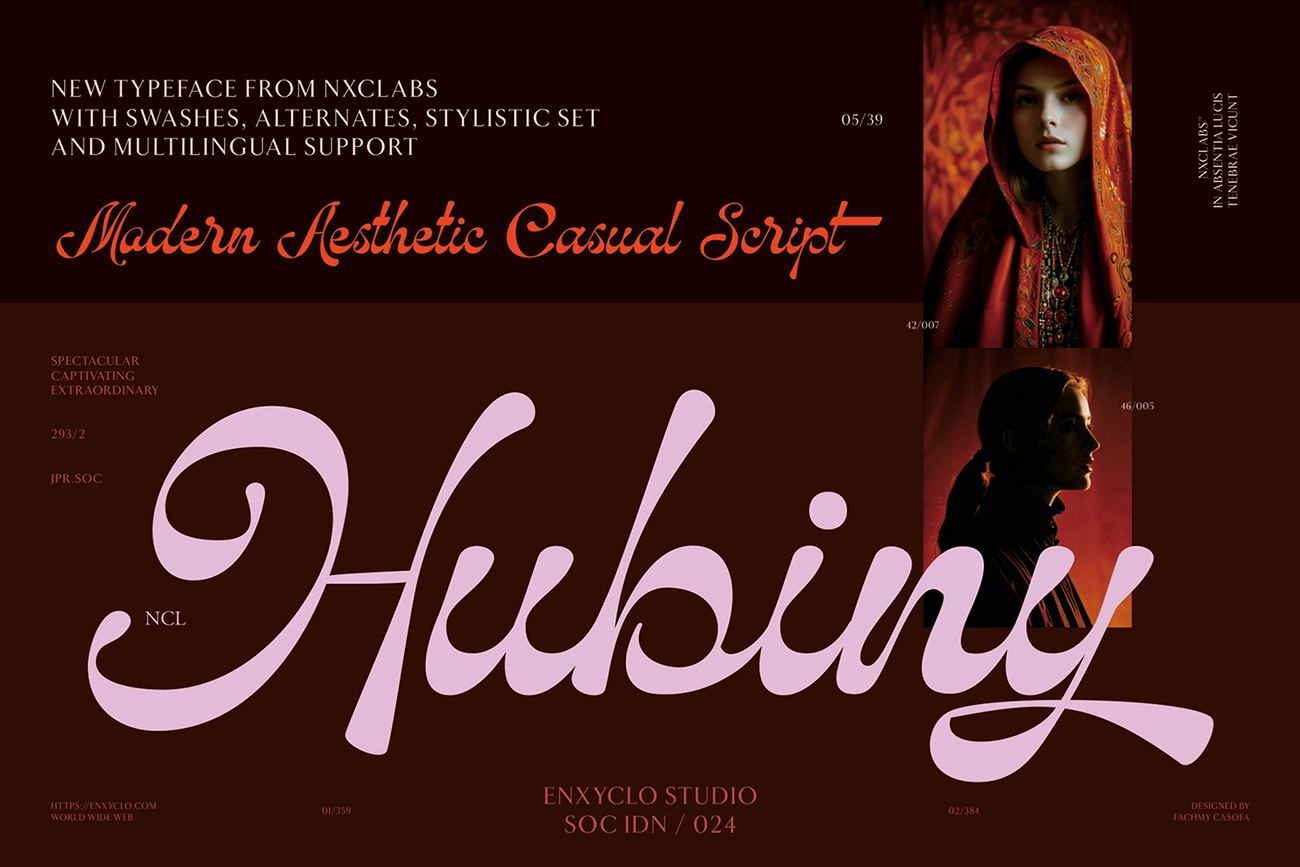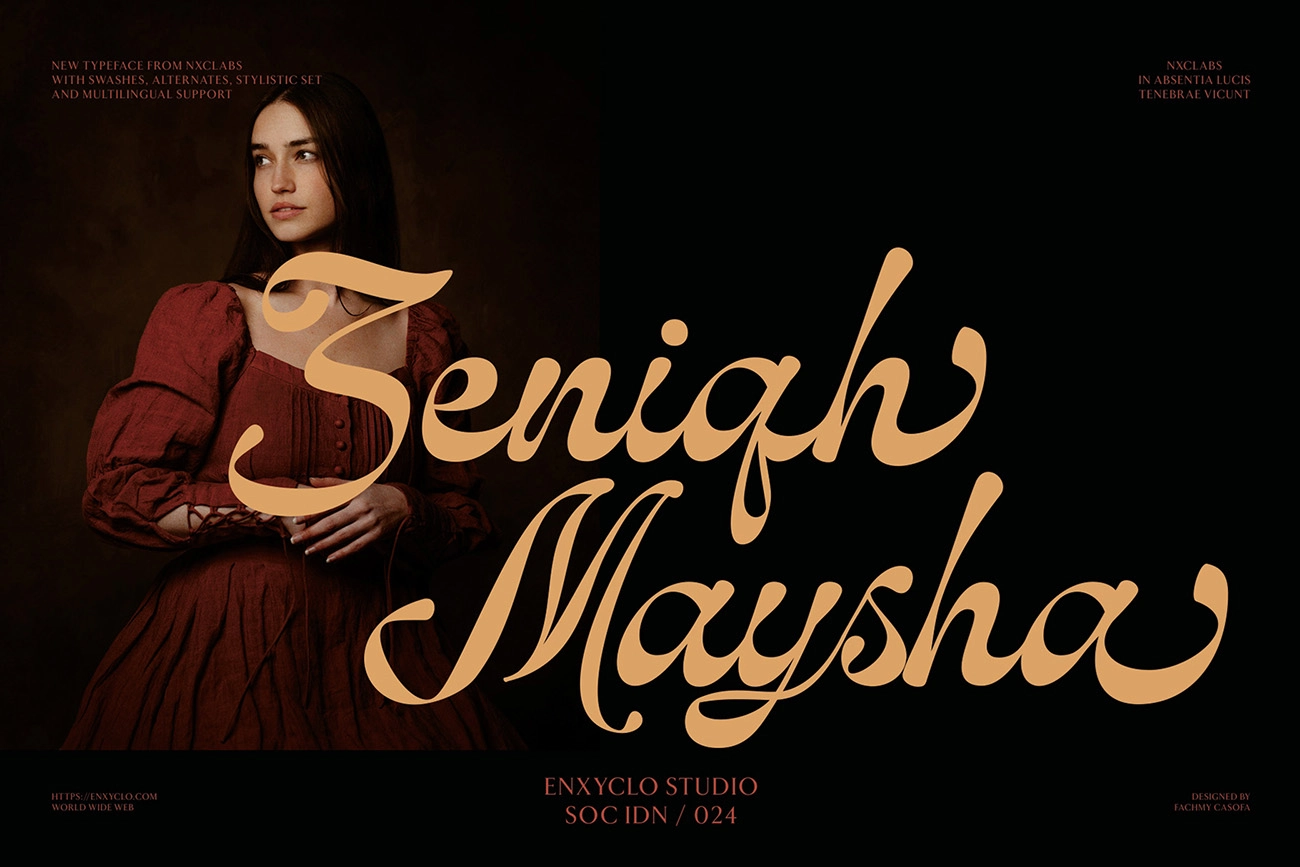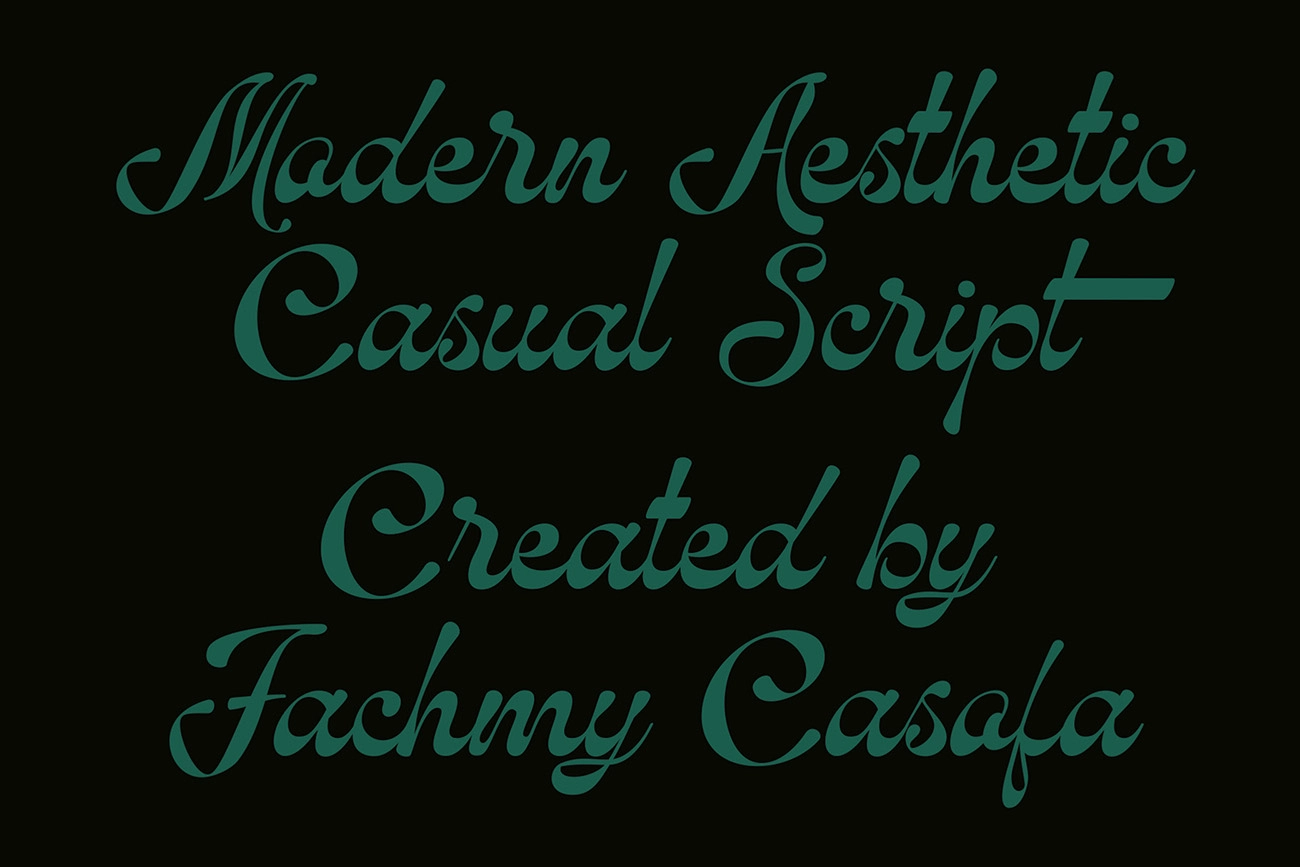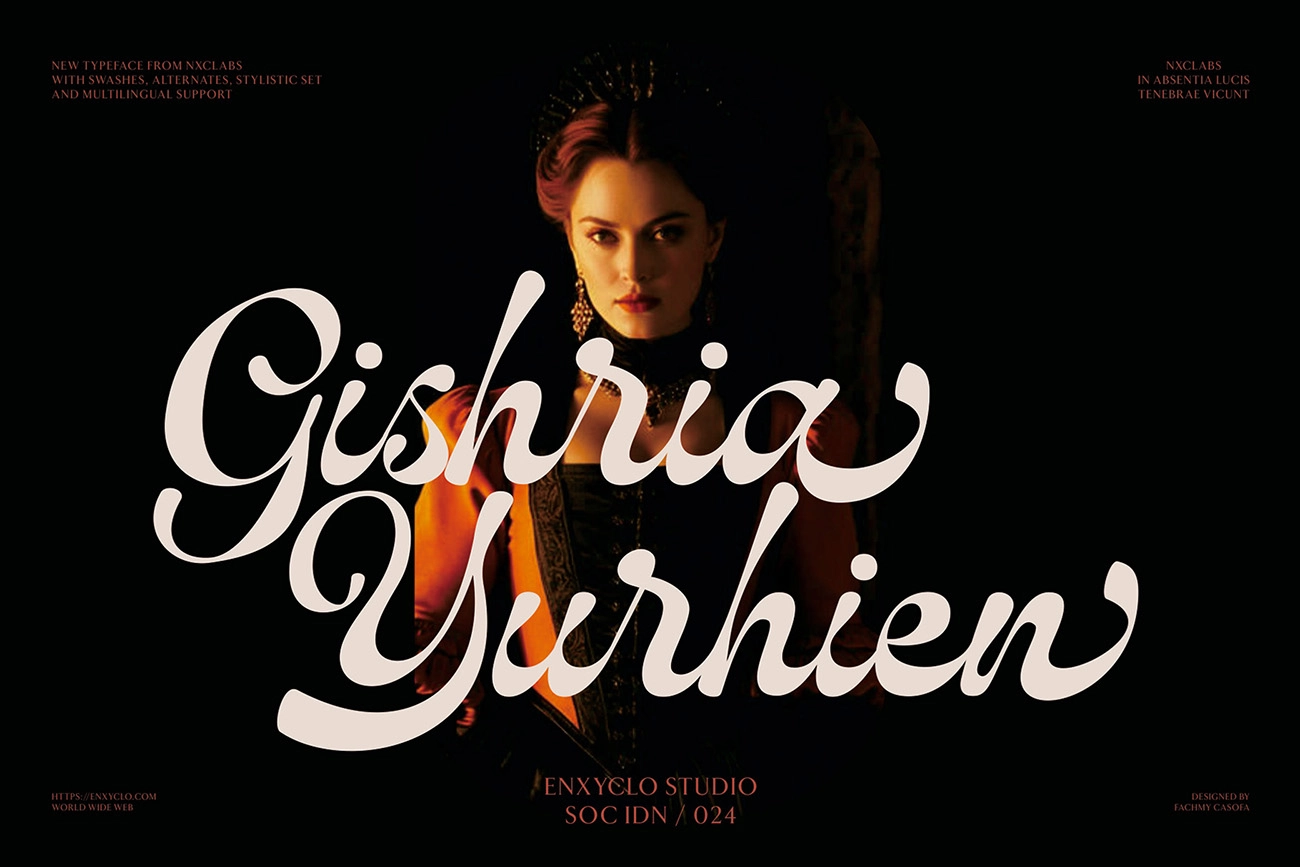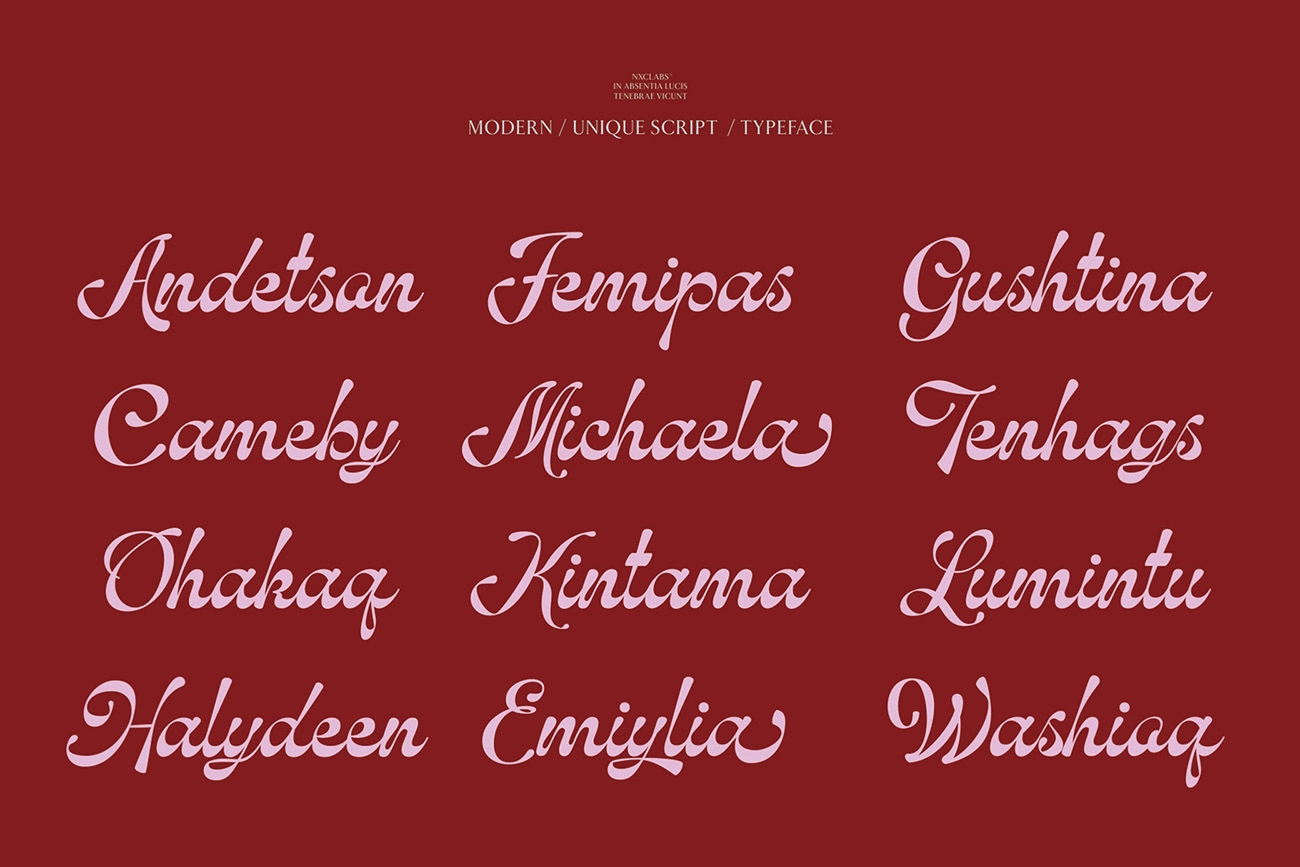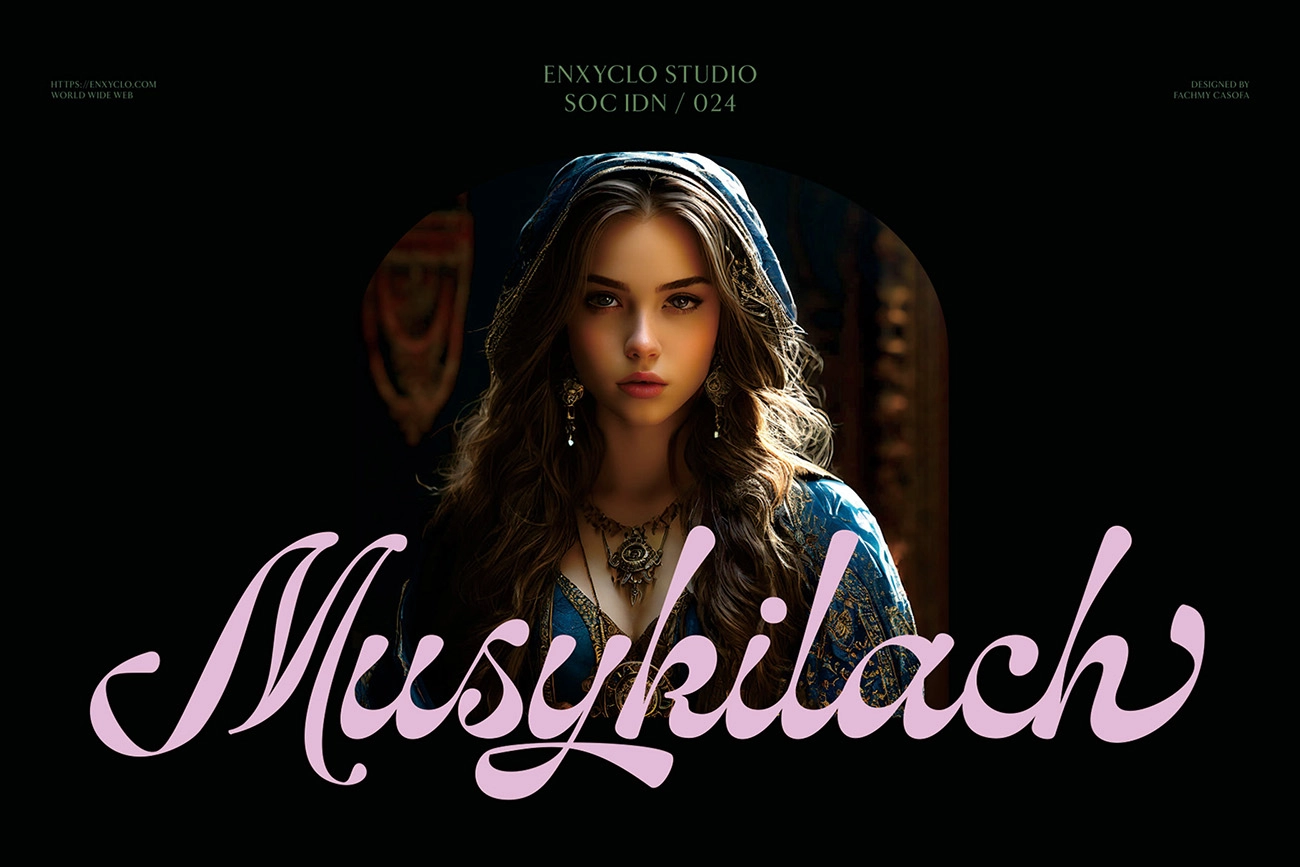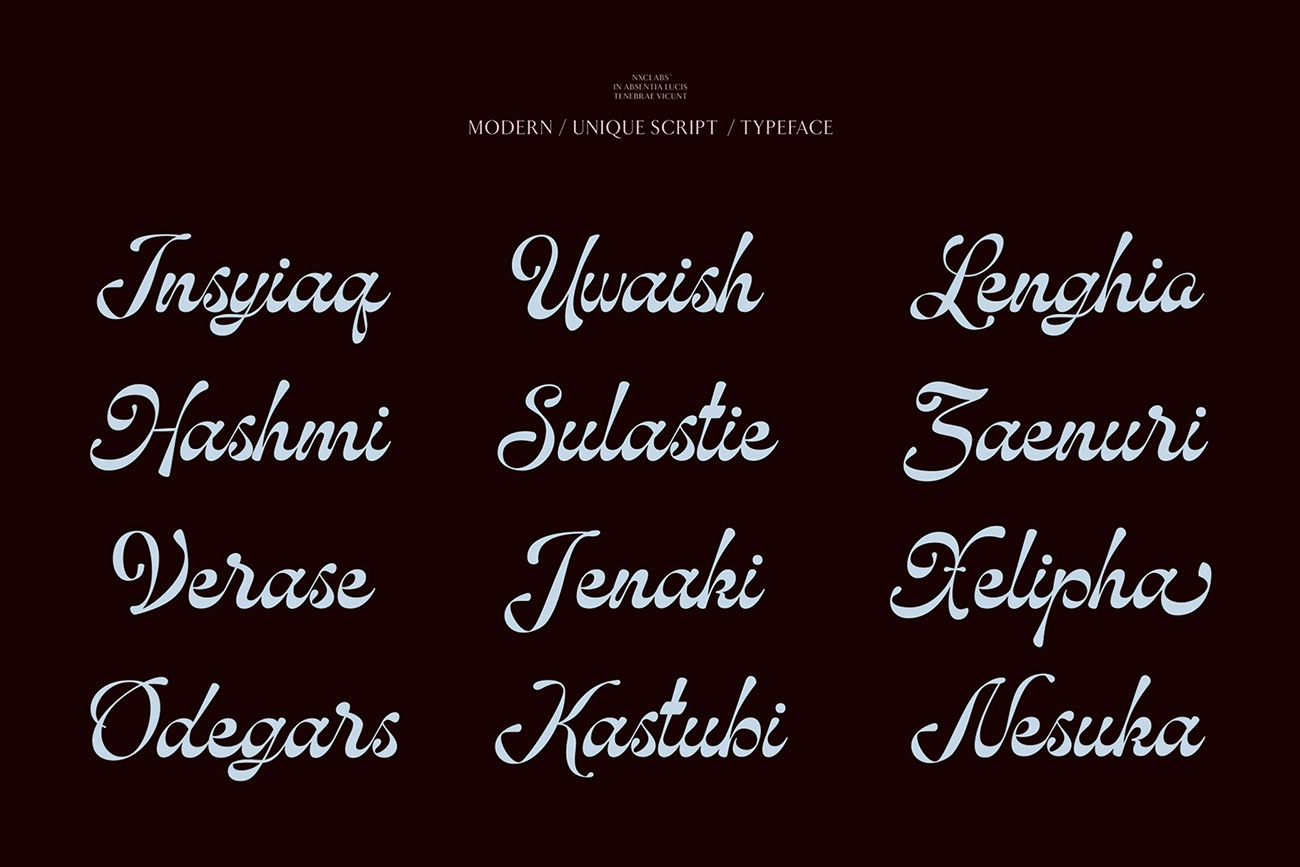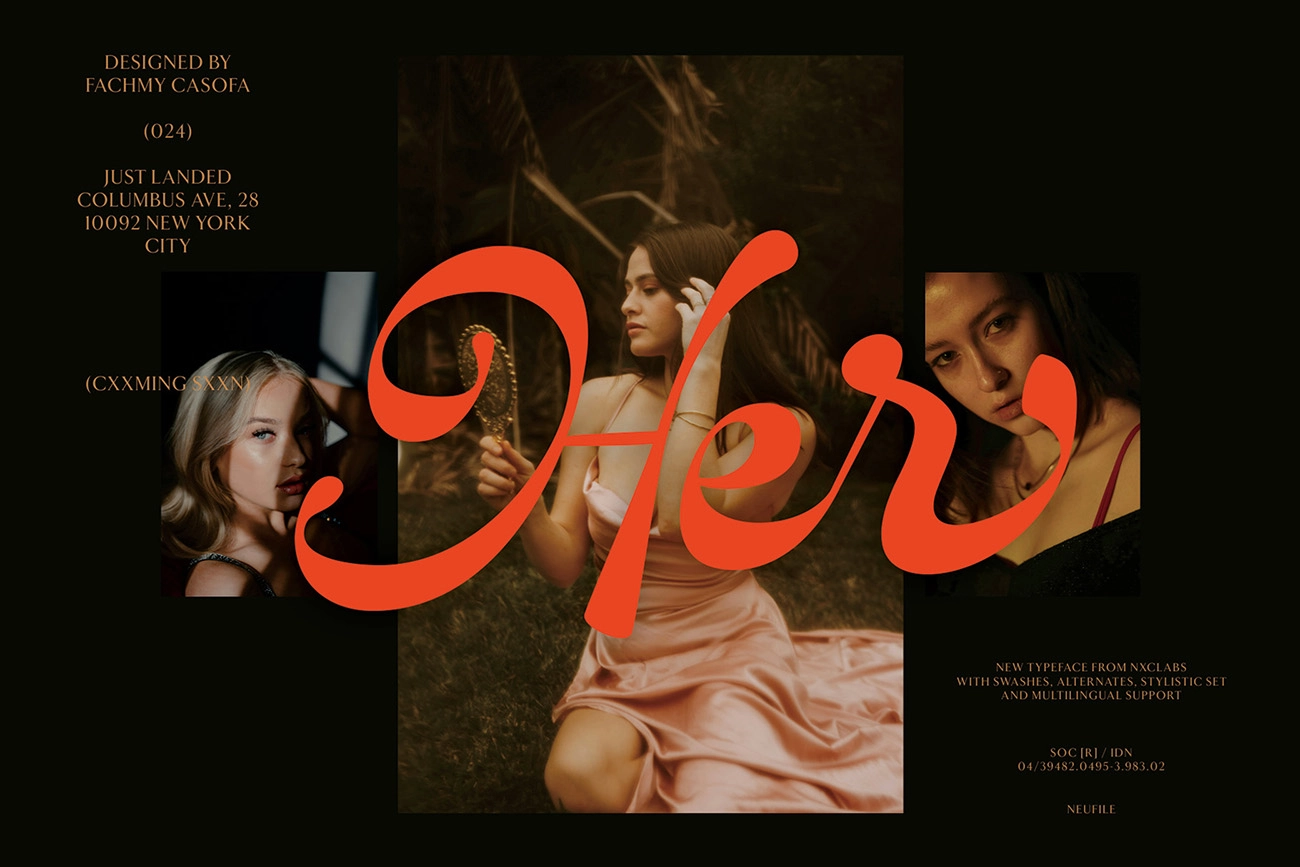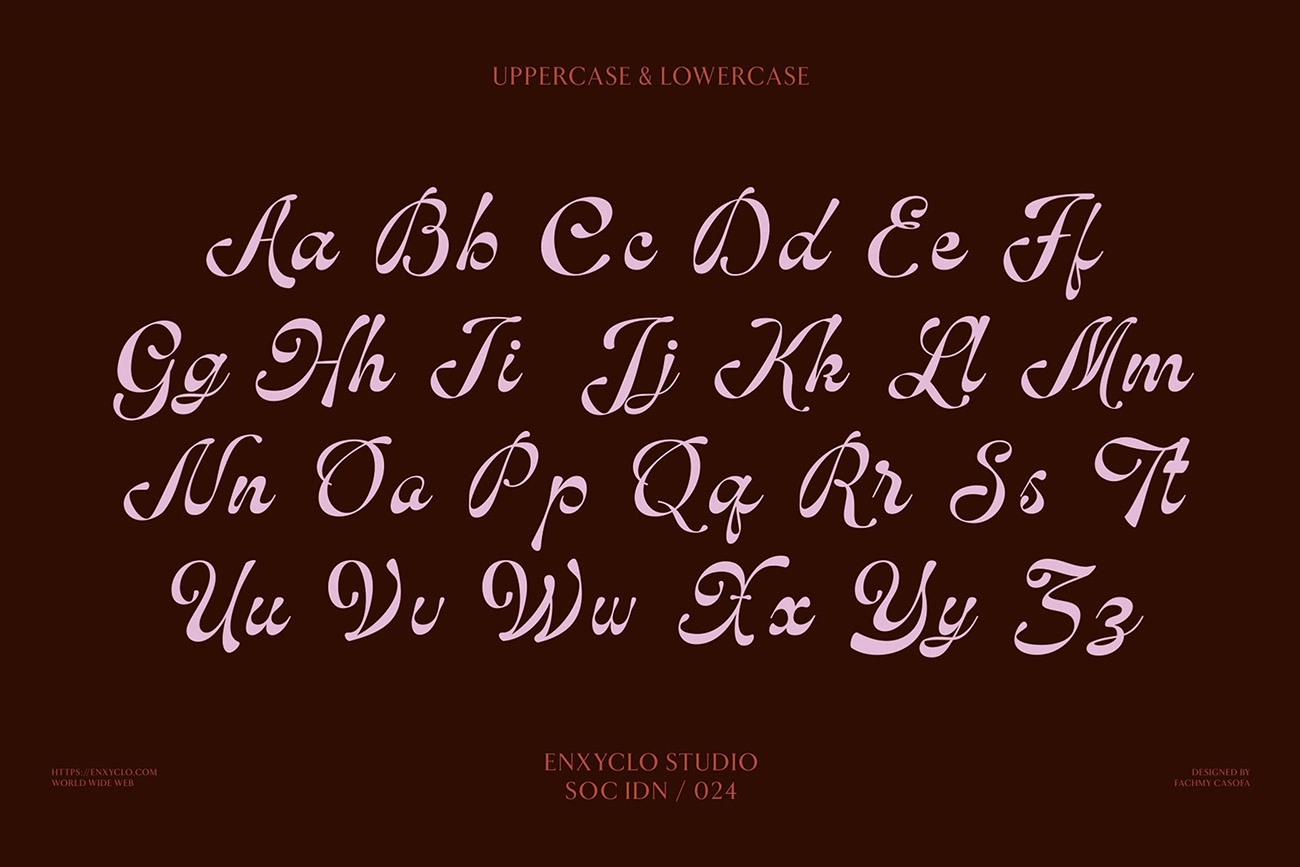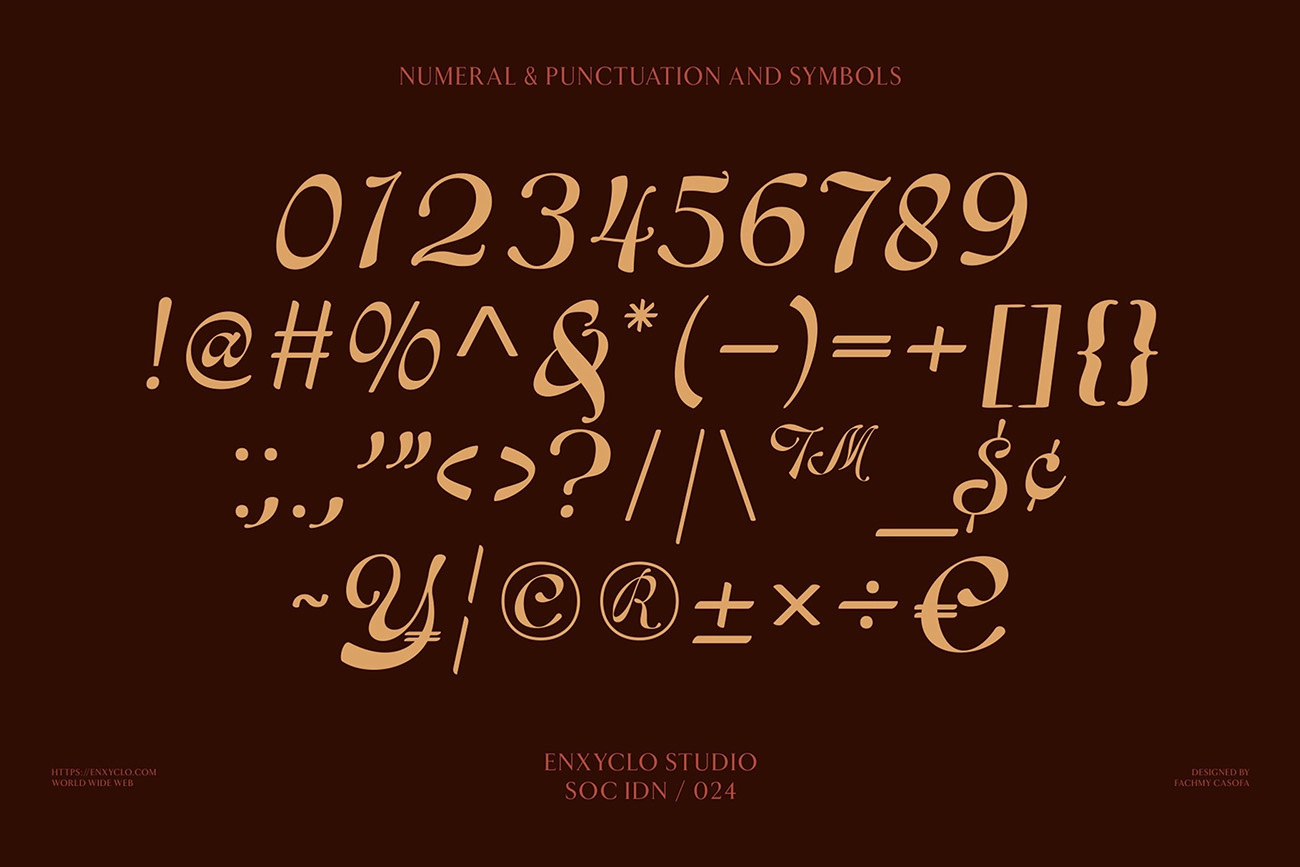
Hubiny - Elegant Script Font
Hubiny – Elegant Script Font is a modern casual script typeface designed to bring elegance and personality to contemporary typography. With smooth flowing strokes and graceful letterforms, Hubiny combines refined script aesthetics with a clean, modern structure. The balanced curves and natural rhythm create a sophisticated yet approachable look that works beautifully across a wide range of creative projects.
Designed for strong visual impact, Hubiny performs exceptionally well in headlines, logos, posters, digital ads, magazines, and branding materials. Its alternates and stylistic variations allow designers to create unique typographic compositions with expressive character while maintaining readability and elegance in both large and smaller layouts.
• 254 Unique Glyphs
• Alternates & Stylistic Set 1–3
• Uppercase & Lowercase Characters
• Numerals, Punctuation & Symbols
• Elegant Modern Script Style